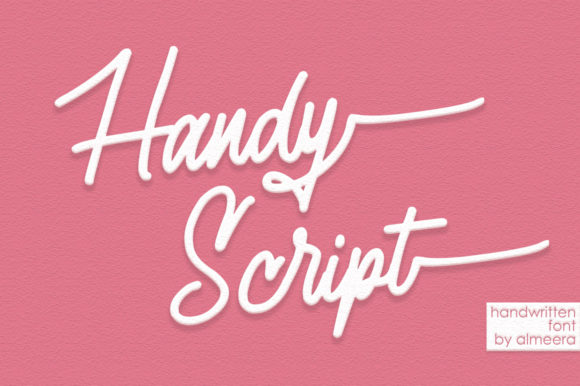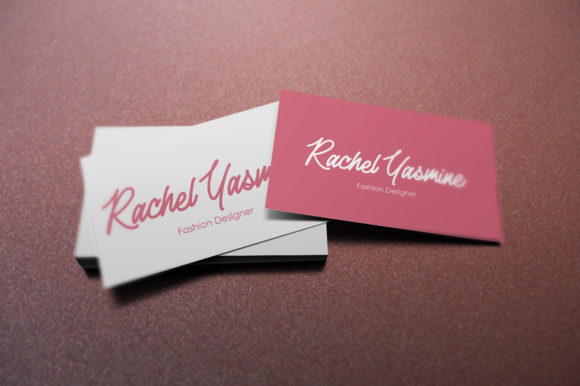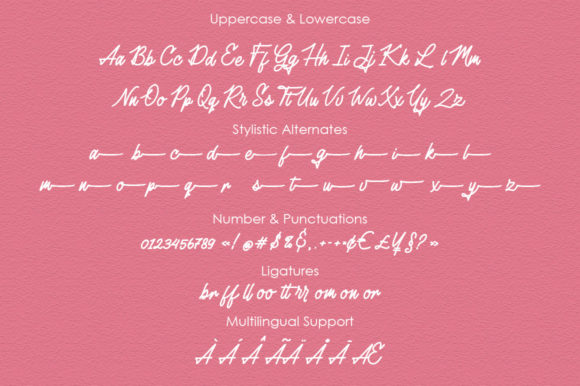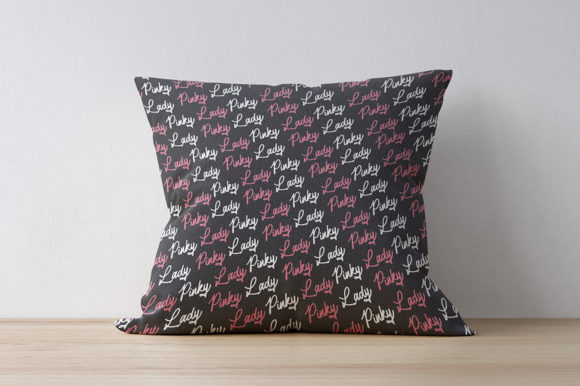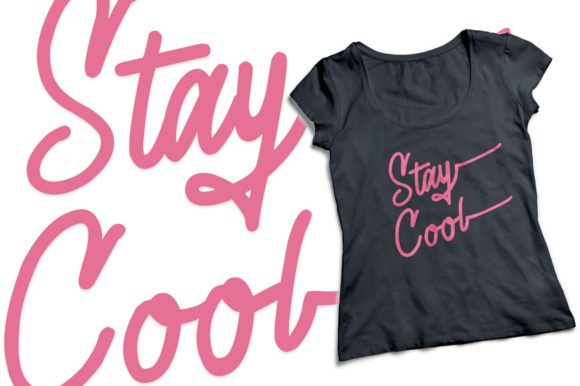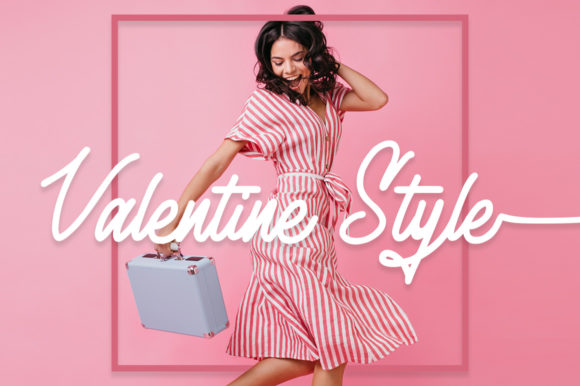
Handy Font
About Handy Font
Handy is a sweet and natural script font, featuring a lovely flow. Every letter has a unique and beautiful touch, which will make your design come alive! This font is PUA encoded which means you can access all of the glyphs and swashes with ease!